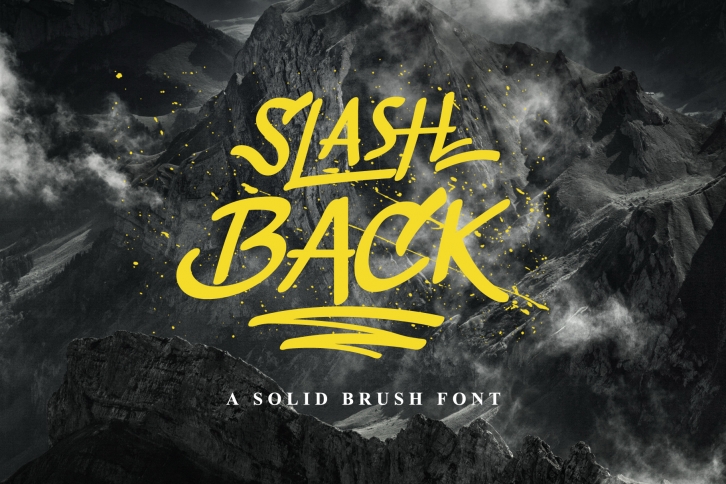
Slashback is a cool brush font, ideal for use in a wide range of relaxed and casual project types. This font comes compelte with swashes so you can create hand-lettered looking projects for use in both digital and print applications.